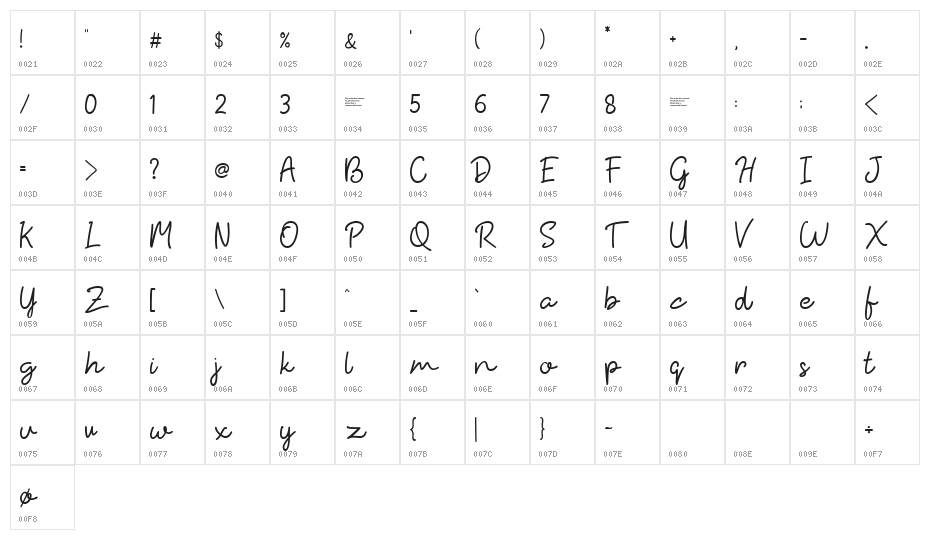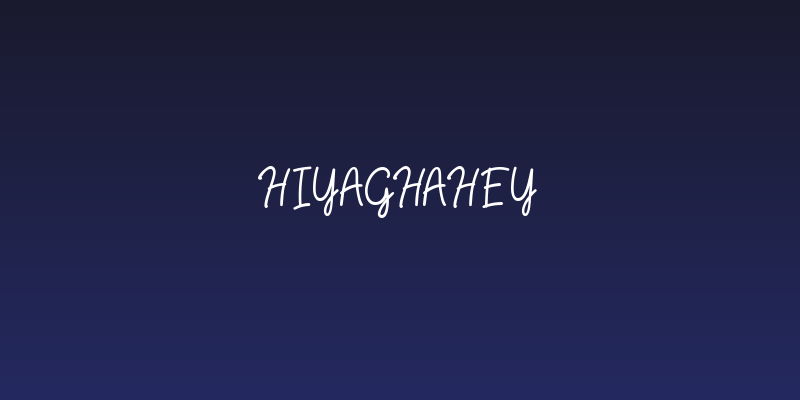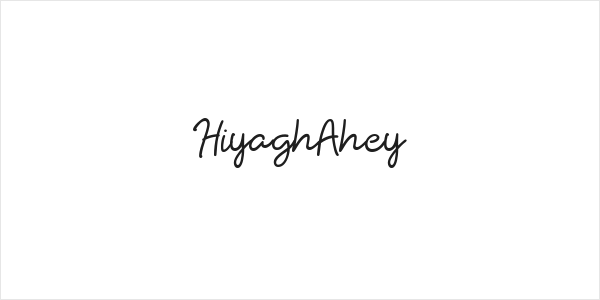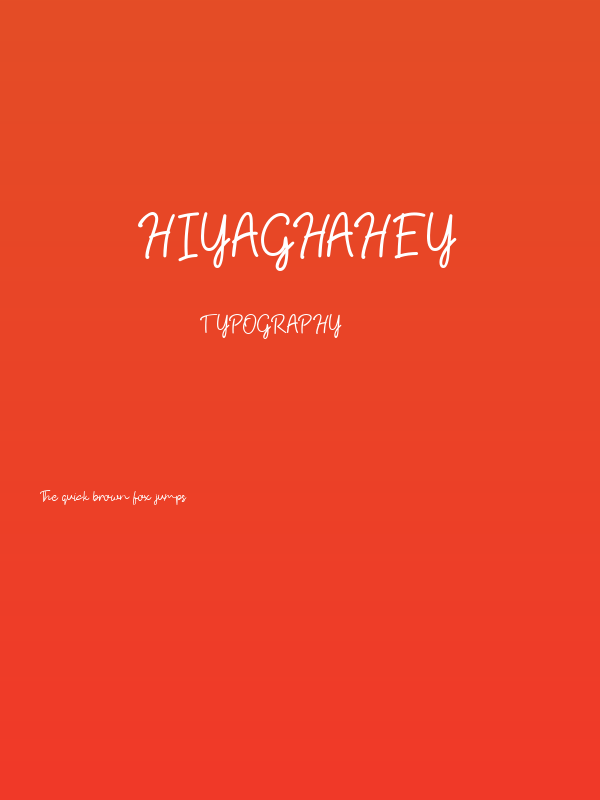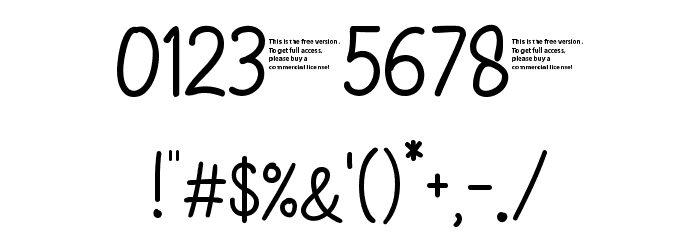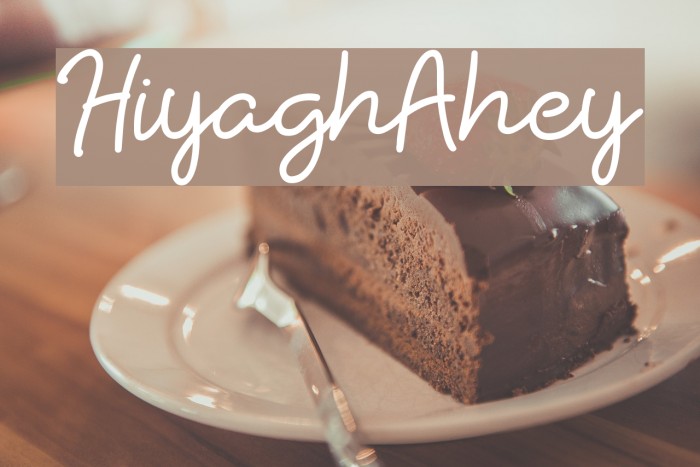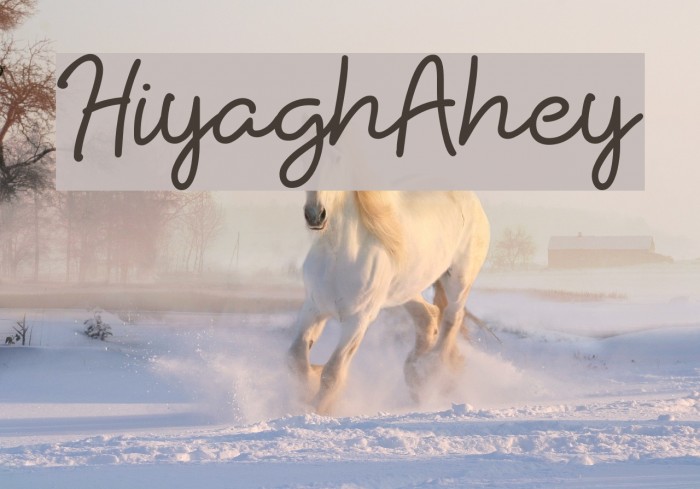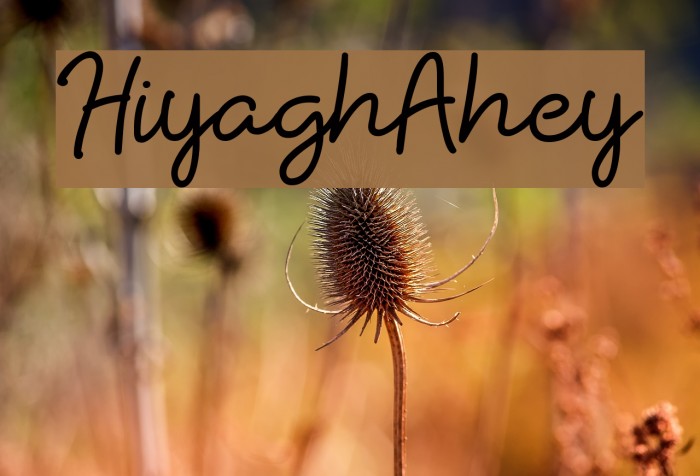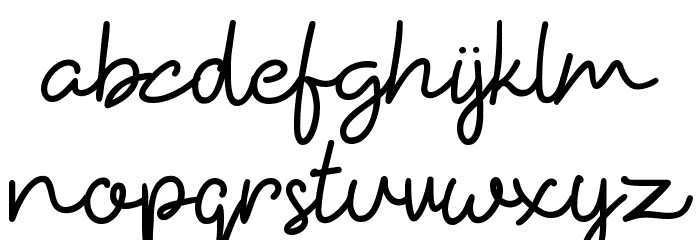
HiyaghAhey Font
HiyaghAhey Description
This font features a playful and casual handwritten style, characterized by its smooth, flowing lines and slightly irregular letterforms. The uppercase letters are tall and narrow, with a slight slant that adds to the informal feel. The lowercase letters are more rounded and connected, enhancing the script-like appearance. The numerals and special characters maintain the same playful aesthetic, making the font versatile for various uses. Its overall appearance is friendly and approachable, suitable for projects that require a personal touch.
| Use Case | Logos, Invitations, Social Media Graphics |
| Proposed Projects | Ideal for greeting cards, invitations, personal branding, and social media graphics. |